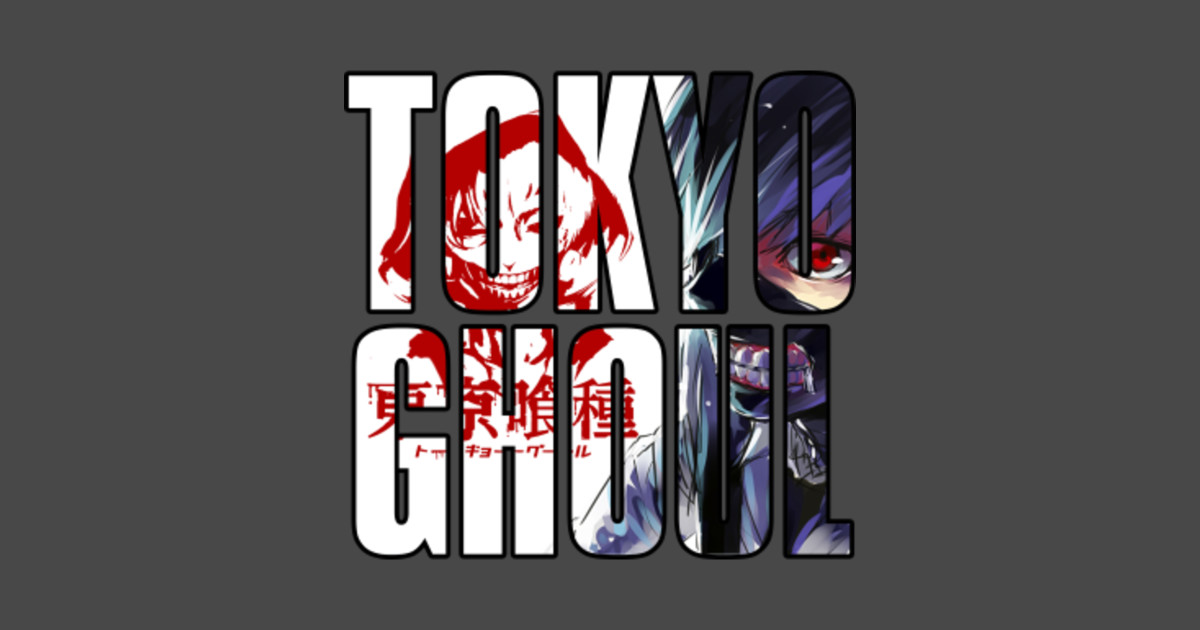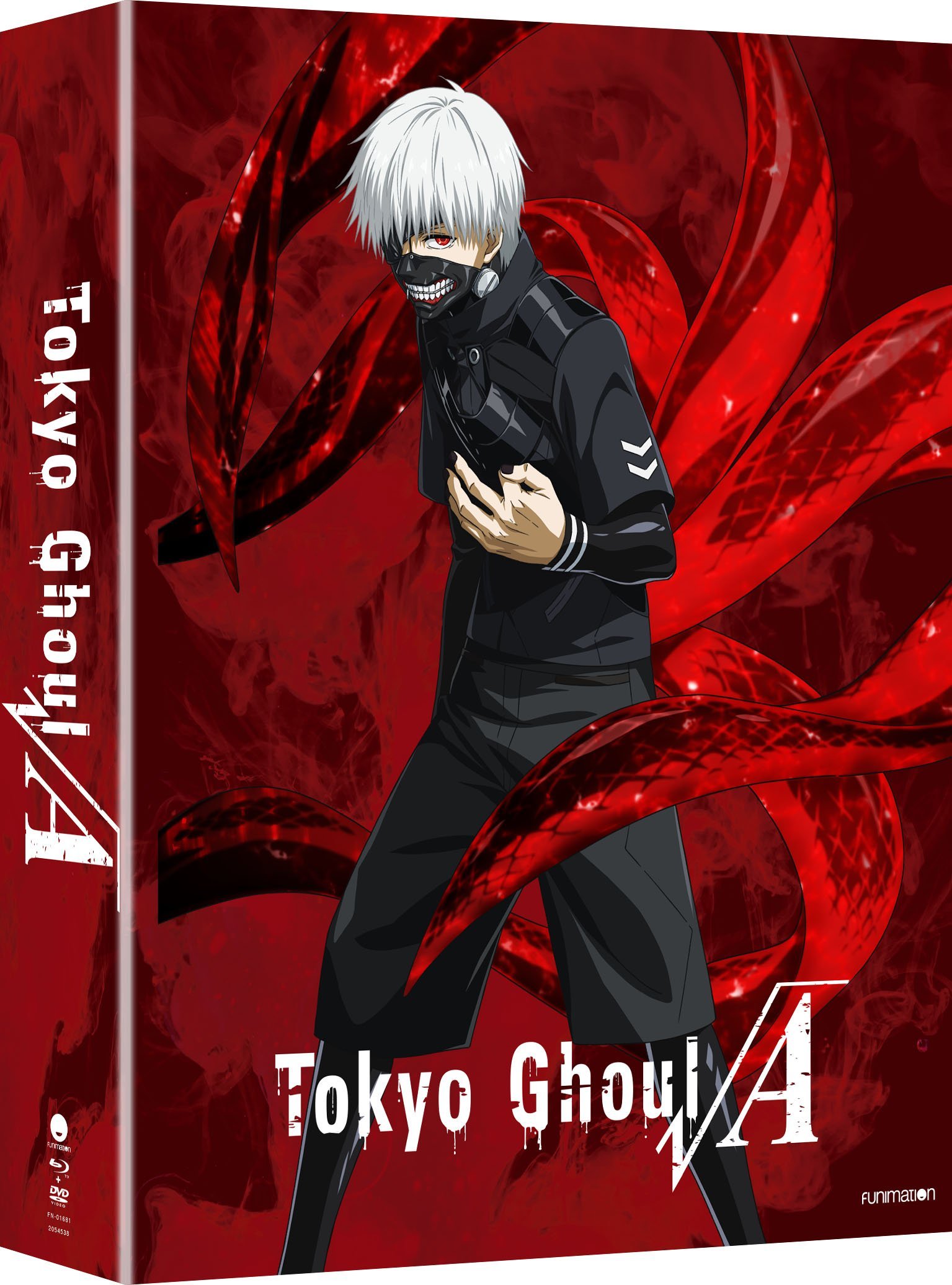
Tokyo Ghoul Font
Tokyo Ghoul Font - Onlinewebfonts.com is internet most popular font online download website,offers more than 8,000,000 desktop and web font. Tokyo ghoul is a mixture of a bunch of fonts with distressing added, including helvetica, bodoni, and clarendon Can somebody help me with the chapter? Cc wild words is the exact one. Onlinewebfonts.com is internet most popular font online download website,offers more than 8,000,000 desktop and web font. The time is now 20:23. Archive of freely downloadable fonts.
Archive of freely downloadable fonts. Cc wild words is the exact one. Onlinewebfonts.com is internet most popular font online download website,offers more than 8,000,000 desktop and web font. Can somebody help me with the chapter? Tokyo ghoul is a mixture of a bunch of fonts with distressing added, including helvetica, bodoni, and clarendon Onlinewebfonts.com is internet most popular font online download website,offers more than 8,000,000 desktop and web font. The time is now 20:23.
Tokyo ghoul is a mixture of a bunch of fonts with distressing added, including helvetica, bodoni, and clarendon Onlinewebfonts.com is internet most popular font online download website,offers more than 8,000,000 desktop and web font. The time is now 20:23. Archive of freely downloadable fonts. Can somebody help me with the chapter? Cc wild words is the exact one. Onlinewebfonts.com is internet most popular font online download website,offers more than 8,000,000 desktop and web font.
Tokyo Ghoul Font Generator
Tokyo ghoul is a mixture of a bunch of fonts with distressing added, including helvetica, bodoni, and clarendon Archive of freely downloadable fonts. Cc wild words is the exact one. The time is now 20:23. Can somebody help me with the chapter?
Onlinewebfonts.com is internet most popular font online download website,offers more than 8,000,000 desktop and web font. Cc wild words is the exact one. Archive of freely downloadable fonts. Onlinewebfonts.com is internet most popular font online download website,offers more than 8,000,000 desktop and web font. Tokyo ghoul is a mixture of a bunch of fonts with distressing added, including helvetica, bodoni,.
Can somebody help me with the chapter? Onlinewebfonts.com is internet most popular font online download website,offers more than 8,000,000 desktop and web font. Tokyo ghoul is a mixture of a bunch of fonts with distressing added, including helvetica, bodoni, and clarendon The time is now 20:23. Archive of freely downloadable fonts.
Can somebody help me with the chapter? Archive of freely downloadable fonts. Tokyo ghoul is a mixture of a bunch of fonts with distressing added, including helvetica, bodoni, and clarendon Cc wild words is the exact one. Onlinewebfonts.com is internet most popular font online download website,offers more than 8,000,000 desktop and web font.
Tokyo ghoul is a mixture of a bunch of fonts with distressing added, including helvetica, bodoni, and clarendon Archive of freely downloadable fonts. Onlinewebfonts.com is internet most popular font online download website,offers more than 8,000,000 desktop and web font. Onlinewebfonts.com is internet most popular font online download website,offers more than 8,000,000 desktop and web font. The time is now 20:23.
'096 Tokyo Ghoul font' Poster by Yexart Design Displate Poster
Can somebody help me with the chapter? Archive of freely downloadable fonts. The time is now 20:23. Cc wild words is the exact one. Onlinewebfonts.com is internet most popular font online download website,offers more than 8,000,000 desktop and web font.
Tokyo Ghoul Font Generator
Archive of freely downloadable fonts. Onlinewebfonts.com is internet most popular font online download website,offers more than 8,000,000 desktop and web font. Can somebody help me with the chapter? Tokyo ghoul is a mixture of a bunch of fonts with distressing added, including helvetica, bodoni, and clarendon Onlinewebfonts.com is internet most popular font online download website,offers more than 8,000,000 desktop and.
Tokyo Ghoul √A Font? forum
The time is now 20:23. Tokyo ghoul is a mixture of a bunch of fonts with distressing added, including helvetica, bodoni, and clarendon Cc wild words is the exact one. Archive of freely downloadable fonts. Can somebody help me with the chapter?
Tokyo Ghoul Font Custom Round Summer Men Tee shirt tee cotton
Archive of freely downloadable fonts. The time is now 20:23. Can somebody help me with the chapter? Onlinewebfonts.com is internet most popular font online download website,offers more than 8,000,000 desktop and web font. Cc wild words is the exact one.
Tokyo Ghoul 'Logo Black and Red Font' Vinyl Car Sticker Little
The time is now 20:23. Onlinewebfonts.com is internet most popular font online download website,offers more than 8,000,000 desktop and web font. Onlinewebfonts.com is internet most popular font online download website,offers more than 8,000,000 desktop and web font. Archive of freely downloadable fonts. Can somebody help me with the chapter?
Can somebody help me with the chapter? The time is now 20:23. Cc wild words is the exact one. Tokyo ghoul is a mixture of a bunch of fonts with distressing added, including helvetica, bodoni, and clarendon